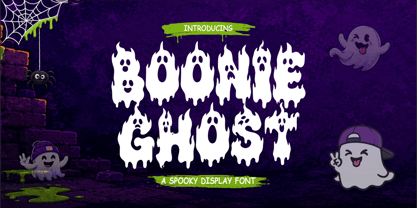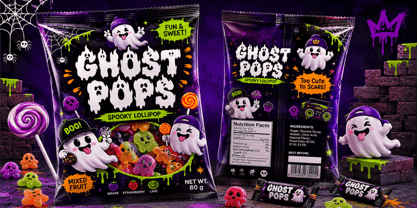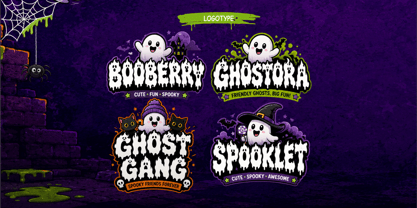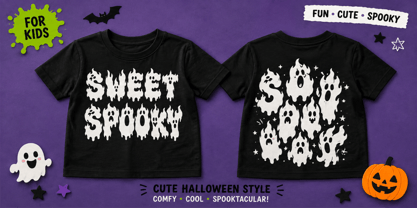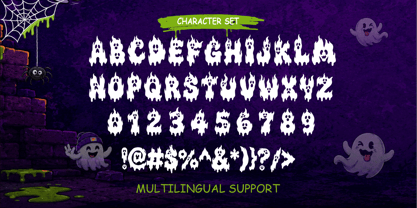
Boonie Ghost
by Sipanji21
The Boonie Ghost Font Family was designed by Sipanji and published by Sipanji21. Boonie Ghost contains 1 styles. More about this family
Boonie Ghost is a playful Halloween display font that transforms spooky inspiration into charming typography filled with personality. Inspired by friendly cartoon ghosts, melting slime, haunted houses, and classic Halloween celebrations, this typeface combines fun horror aesthetics with bold readability to create a display font that immediately captures attention. Rather than focusing on frightening visuals, Boonie Ghost embraces the lighter, more cheerful side of Halloween, making it suitable for designers creating festive, family-friendly, and entertaining projects.
Every character has been carefully illustrated with ghost-inspired silhouettes featuring flowing drips, rounded curves, expressive faces, and playful details that give each letter its own unique personality. These decorative elements create typography that feels alive while maintaining excellent legibility, allowing headlines to remain bold and easy to read even in complex compositions. The result is a font that instantly communicates Halloween without relying on additional graphics or illustrations.
Boonie Ghost includes a complete uppercase character set, along with numbers, punctuation, and multilingual support. This combination provides designers with everything needed to create cohesive seasonal branding across a wide variety of applications. Whether producing short headlines, promotional graphics, product packaging, event titles, or decorative signage, every character works together consistently while maintaining the playful ghost theme.
The font excels in Halloween event promotions where bold typography becomes the center of attention. Haunted attractions, costume parties, pumpkin festivals, trick-or-treat events, horror movie nights, school celebrations, and autumn festivals all benefit from Boonie Ghost's cheerful spooky personality. Large headlines become memorable visual elements that immediately establish a festive atmosphere while remaining approachable for audiences of all ages.